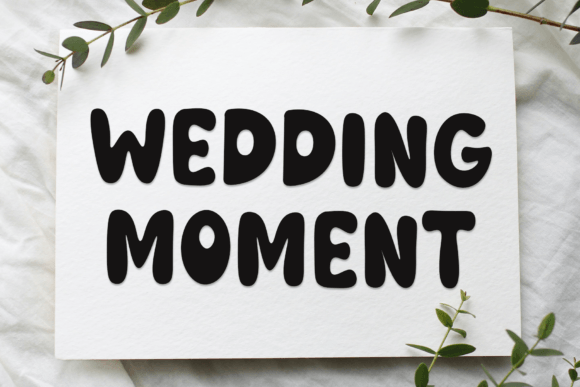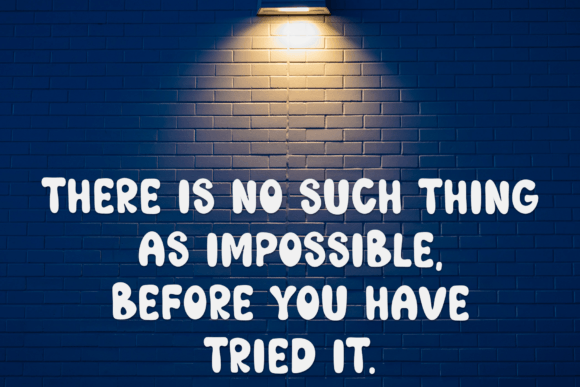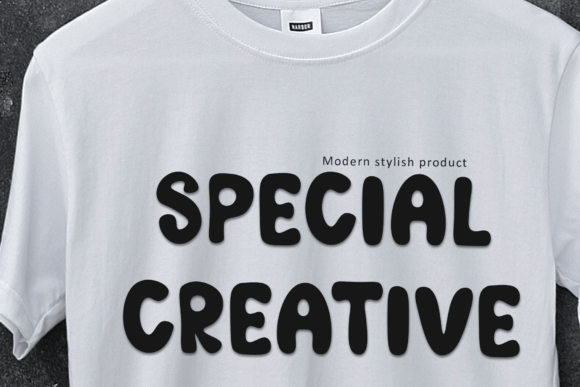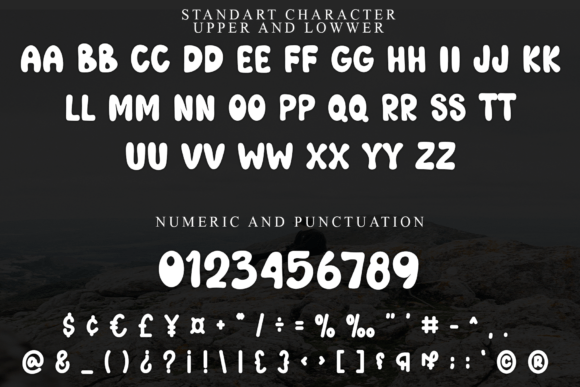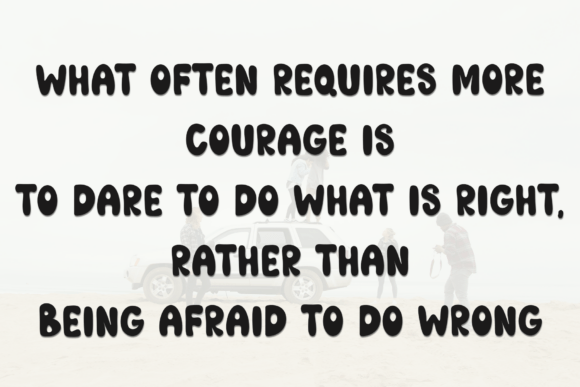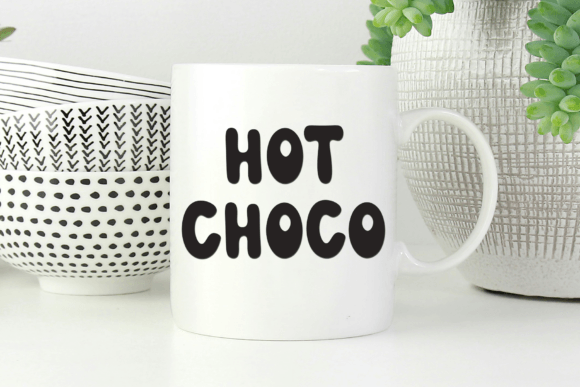
Bubble Craft Font: The Fun and Playful Display Font for Designers and Crafters
Are you looking for a font that can add a touch of playfulness and whimsy to your designs? Look no further than the Bubble Craft Font! This fun and bold display font is perfect for making eye-catching text for posters, logos, and more. With its bubbly, rounded design, Bubble Craft Font is sure to bring a smile to your audience’s faces.
What is Bubble Craft Font?
Bubble Craft Font is a display font that features a unique, bubble-like design. The font is characterized by its rounded, curved lines and playful appearance. It’s the perfect choice for designers and crafters who want to add a touch of fun and personality to their work.
Key Features of Bubble Craft Font
- Fun and playful design: Bubble Craft Font features a unique, bubbly design that’s sure to grab attention.
- Bold and eye-catching: The font is bold and eye-catching, making it perfect for posters, logos, and other designs where you want to make a statement.
- Rounded and curved lines: The font features rounded, curved lines that give it a playful, whimsical feel.
- Easy to read: Despite its playful design, Bubble Craft Font is easy to read, even in large sizes.
Uses for Bubble Craft Font
Bubble Craft Font is a versatile font that can be used for a wide range of design projects. Here are some ideas to get you started:
- Posters and flyers: Use Bubble Craft Font to create eye-catching posters and flyers for events, promotions, and more.
- Logos and branding: The font is perfect for creating fun and playful logos and branding materials for businesses and organizations.
- Social media graphics: Use Bubble Craft Font to create engaging social media graphics that will grab attention and drive engagement.
- Crafting and DIY projects: The font is also perfect for crafters and DIY enthusiasts who want to add a touch of personality to their projects.
Tips for Using Bubble Craft Font
Here are some tips for using Bubble Craft Font in your designs:
- Use it sparingly: Because of its bold and playful design, it’s best to use Bubble Craft Font sparingly. Use it for headings or titles, and pair it with a simpler font for body text.
- Experiment with colors: The font looks great in bright, bold colors. Experiment with different colors to find the one that works best for your design.
- Pair it with other fonts: Bubble Craft Font pairs well with a wide range of other fonts. Experiment with different pairings to find the one that works best for your design.
Bubble Craft Font is a fun and playful display font that’s perfect for designers and crafters who want to add a touch of personality to their work. With its bold and eye-catching design, it’s sure to grab attention and drive engagement. Whether you’re creating posters, logos, or social media graphics, Bubble Craft Font is a great choice. So why not give it a try and see what kind of creative projects you can come up with?